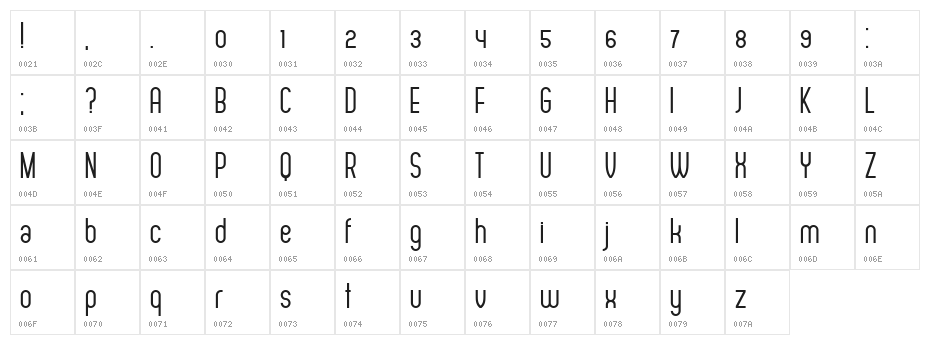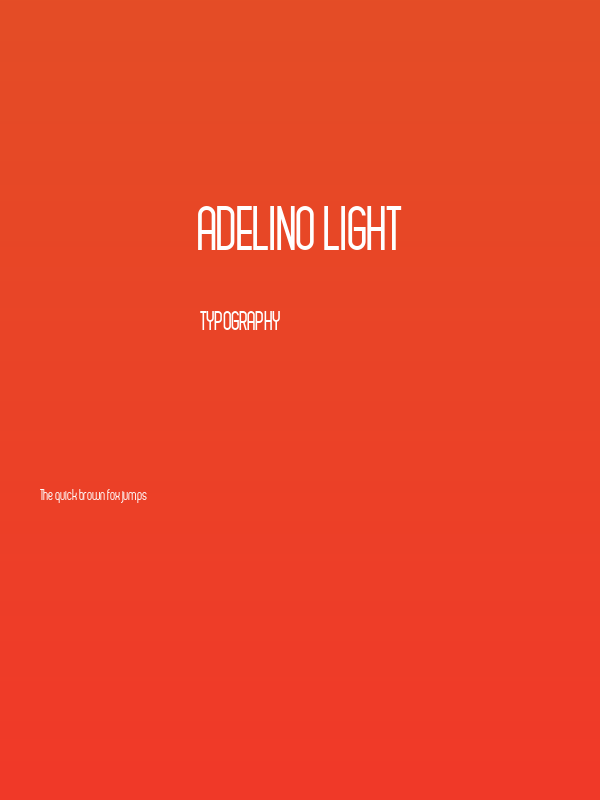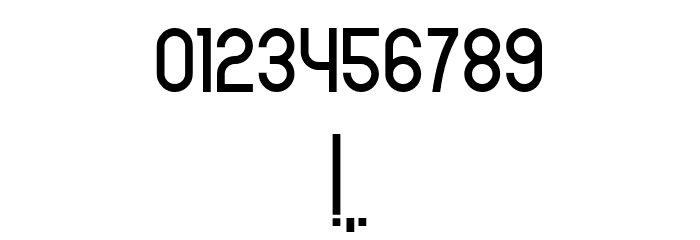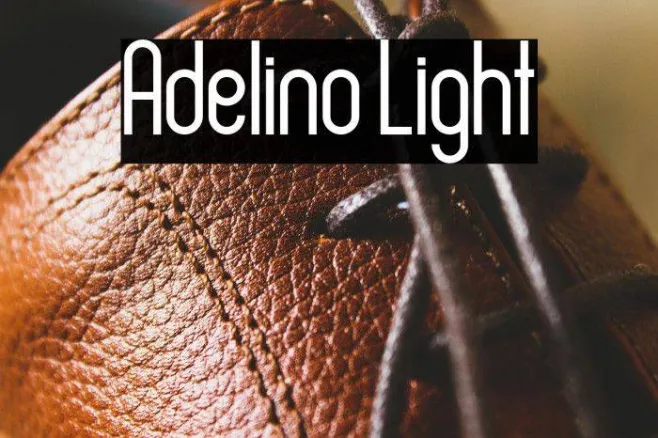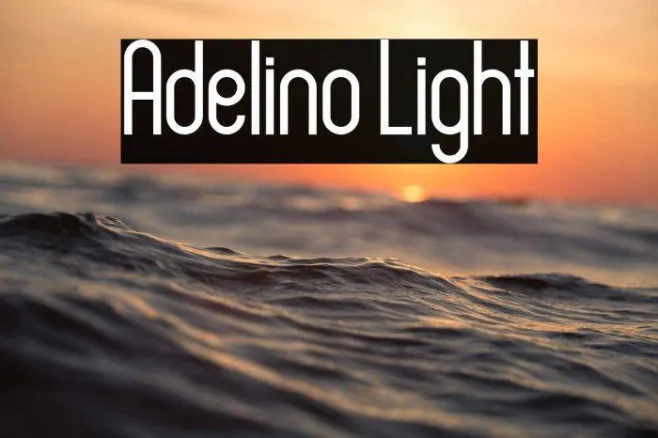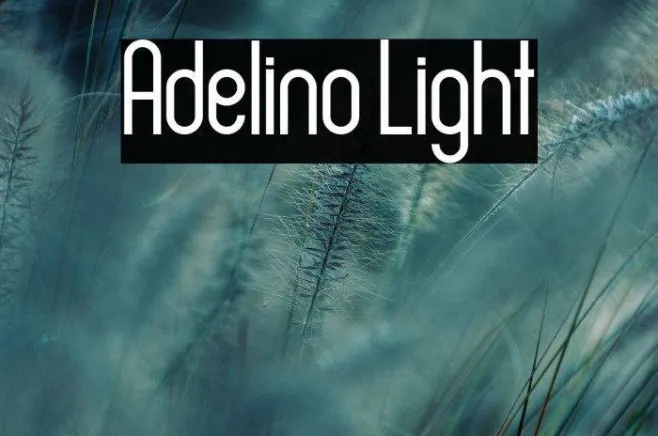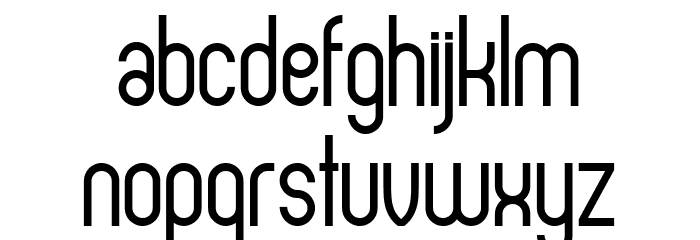
Adelino Light Font
Adelino Light Description
This font features a sleek and modern design with a geometric structure. The characters are tall and narrow, giving it a condensed appearance. The strokes are consistent in width, contributing to a clean and uniform look. The uppercase letters are bold and commanding, while the lowercase letters maintain a similar height, enhancing readability. The numerals are distinct and align well with the overall style. Special characters are minimalistic, fitting seamlessly with the rest of the font. This typeface exudes a contemporary vibe, making it suitable for various design applications.
| Proposed Projects | Ideal for branding, advertising, and editorial design projects that require a modern and clean aesthetic. |